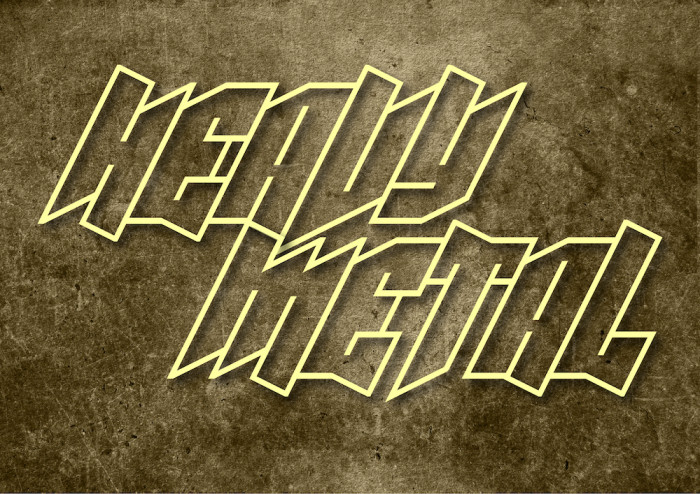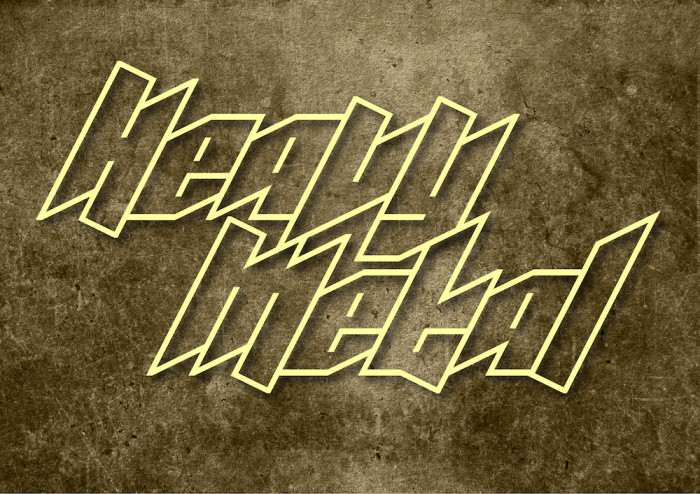
A fantastic use of the "heavy" concept without relying on heavy shading 10/10
Such fantastic use of the brick. Love it.
Great work. The letters work seamlessly together, no kerning necessary. 10/10
Hey, I almost forgot to comment on this precious beauty! I ❤️ it! One of the fonts I'm preparing also has triangle endings like it. Congratulations, compa! I can't wait to see your 3rd entry.
I like it too. It completely fulfills the cliché and yet, your font is more than that - so I ❤︎
so cool
it reminds me of guitar hero